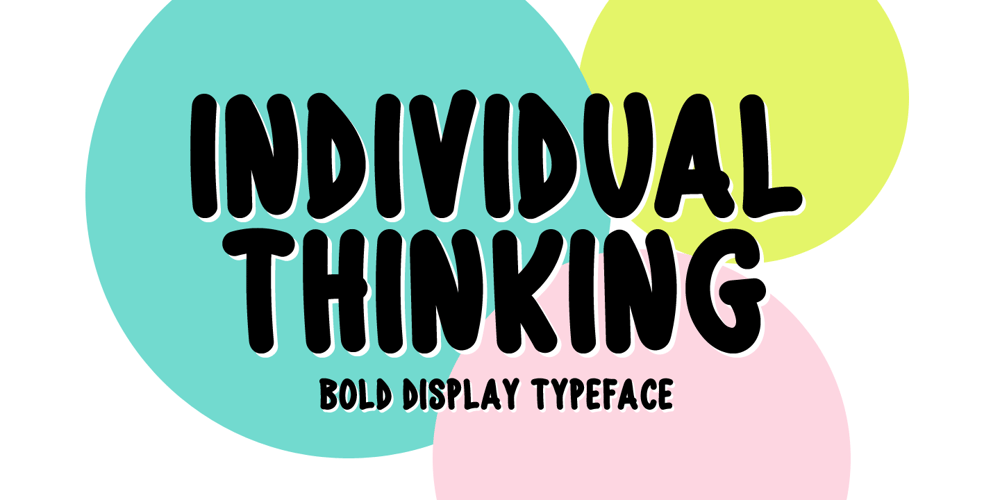
Individual Thinking Font Family was designed by Md Shohail Bhuian and published by Seemly Fonts. Individual Thinking contains 1 styles and family package options. Individual Thinking is a bold and chunky lettered display font. You can use it for various projects, such as blog posts, logos, branding, ads, invitations, greeting cards, planners, photo albums, decorations, and much more.